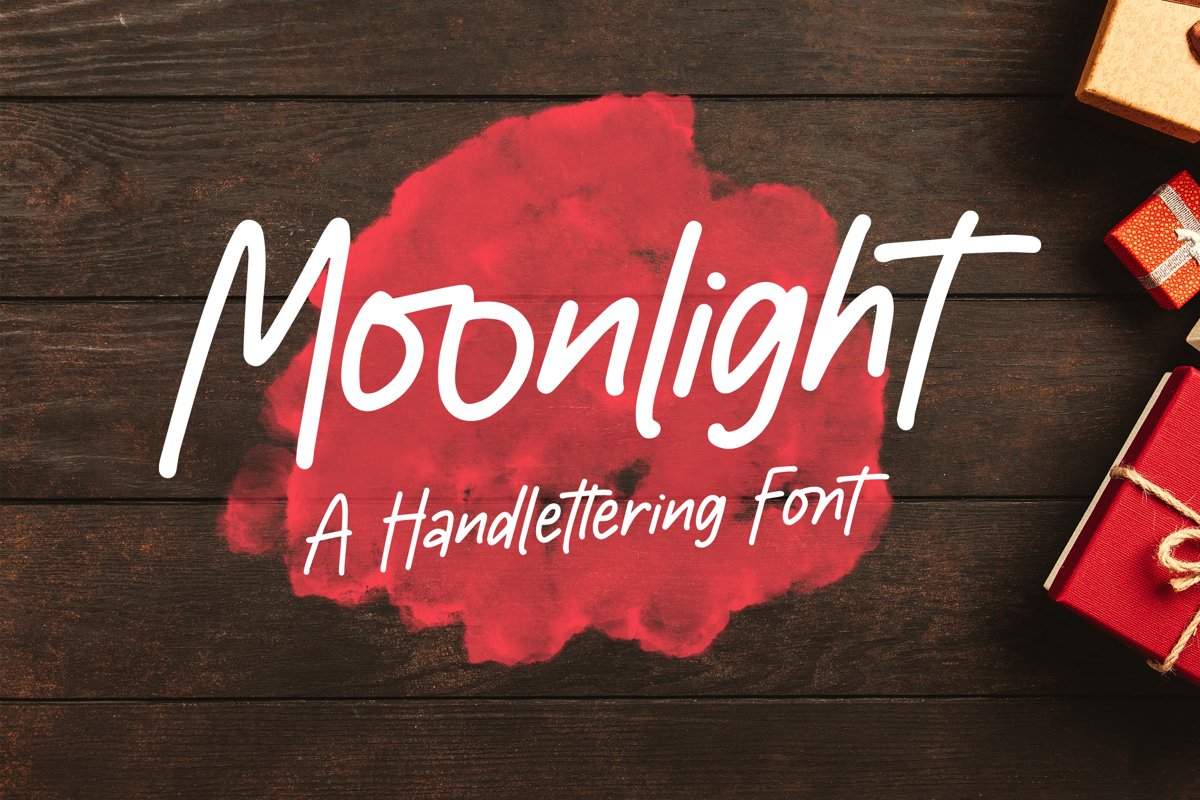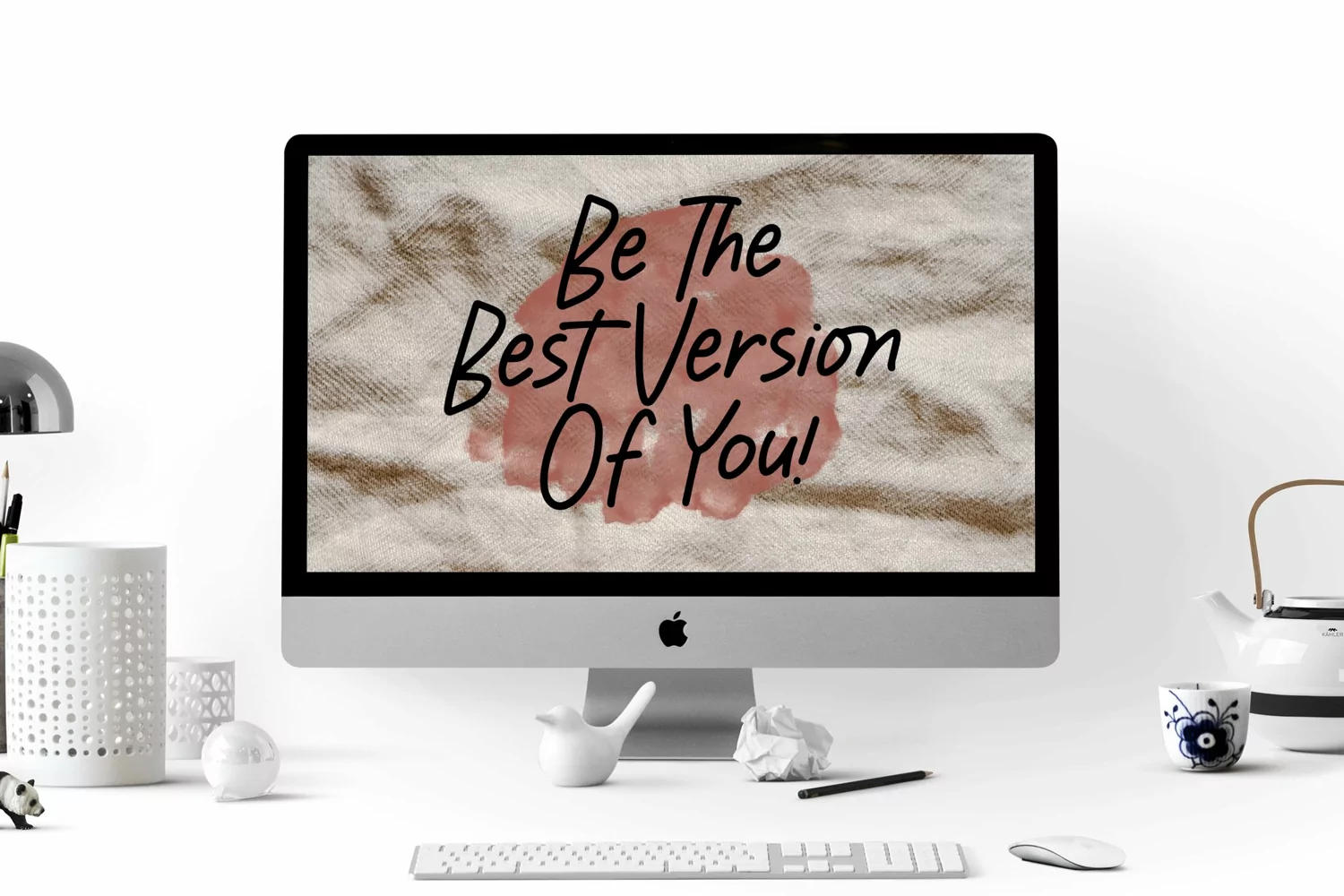
Moonlight - Handlettering Font that contain lowercase, uppercase, symbol, and also support multi language. There’s a lot ligatures in this font. This Font also comes with ligatures, alternates and many more. this font suitable for fashion, branding, catalog and other design what you want.